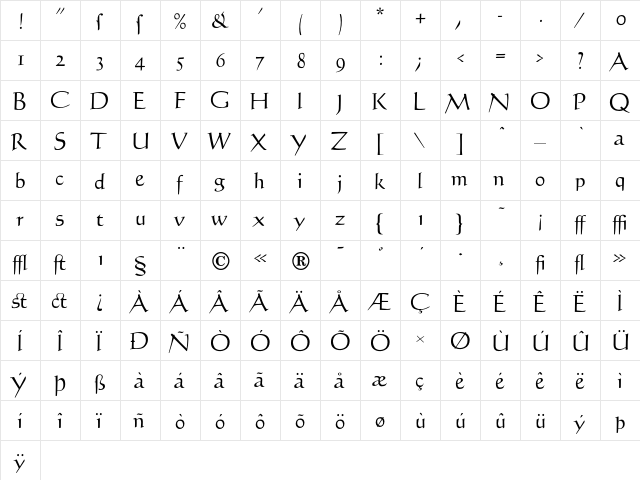
Humanist Regular
Design Context for Humanist Typeface
Humanist offers clean, dependable letterforms without strong stylistic allegiance, making it a practical choice for designers who need flexibility.
Pro Tip: Pair Humanist with a font of contrasting weight or personality to build a more expressive typographic hierarchy.